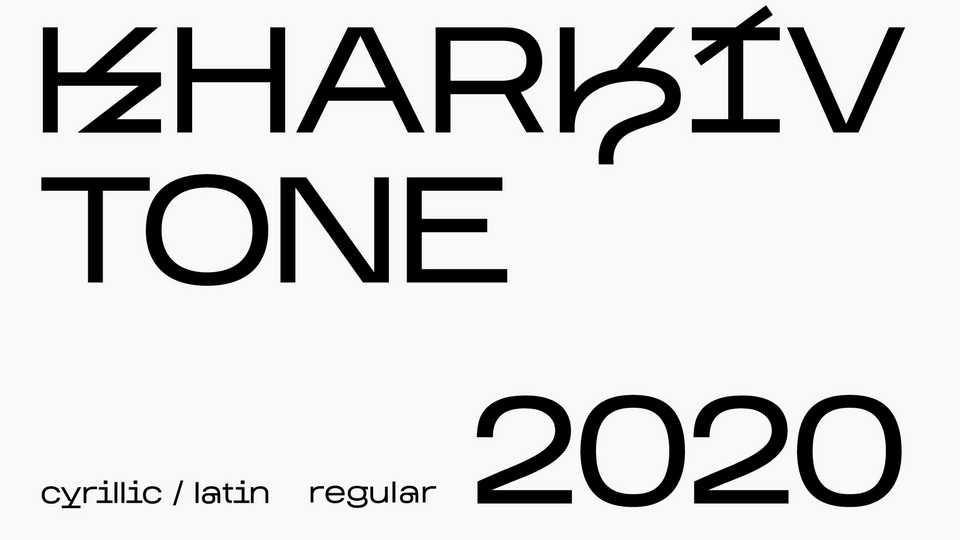
Download Kharkiv Tone font, an eclectic display typeface created for visualization of the voice of Kharkiv. The font combines the elements of the city’s communication, including graffiti, handwritten graffiti and technical fonts, to reflect its mood.